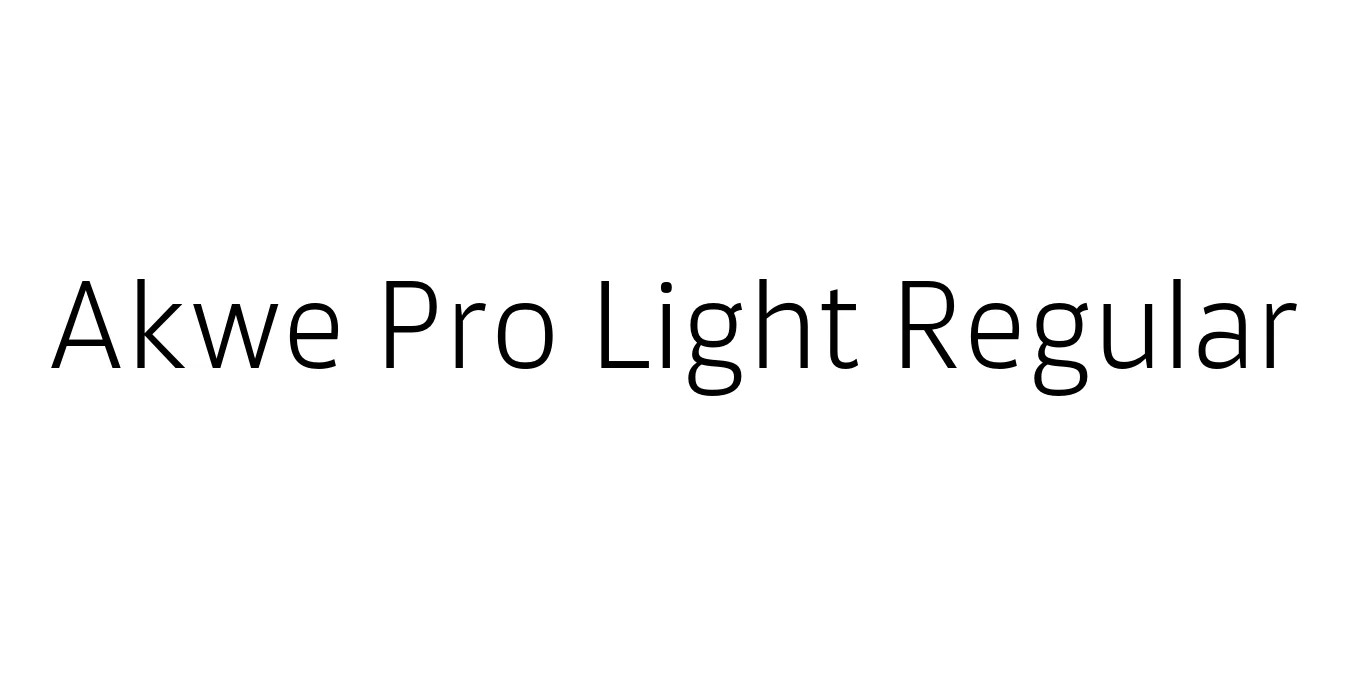
Akwe Pro Light Regular
Designed by Plamen Motev
Akwe Pro Light Regular is a sophisticated sans-serif typeface designed by Plamen Motev and published by the Fontfabric type foundry. It stands out as a versatile superfamily that bridges the gap between geometric construction and humanist warmth. The Light Regular weight is specifically engineered for clarity and elegance, featuring a generous x-height and open counters that maintain exceptional legibility even in dense typographic environments or at smaller point sizes.
The font is part of a larger, highly functional family that includes various weights and styles, making it a powerful tool for professional typographers. Akwe Pro incorporates advanced OpenType features such as localized forms, tabular figures, and ligatures, providing extensive support for various languages. Its neutral yet distinct personality makes it an excellent choice for designers looking to convey stability and modernity without sacrificing character.
Akwe Pro Light Regular Best Uses
Ideal for magazines and light-weight body copy in luxury publications.
Perfect for modern corporate identities and minimalist logo designs.
Highly readable for mobile apps and website navigation menus.
Effective for high-end retail signage and sophisticated promotional materials.